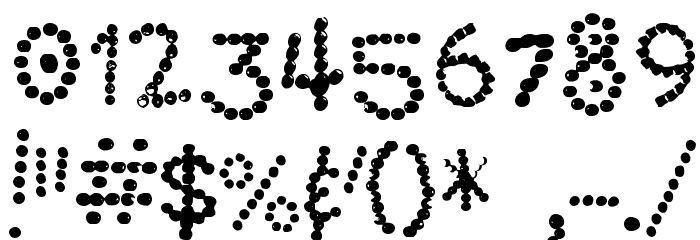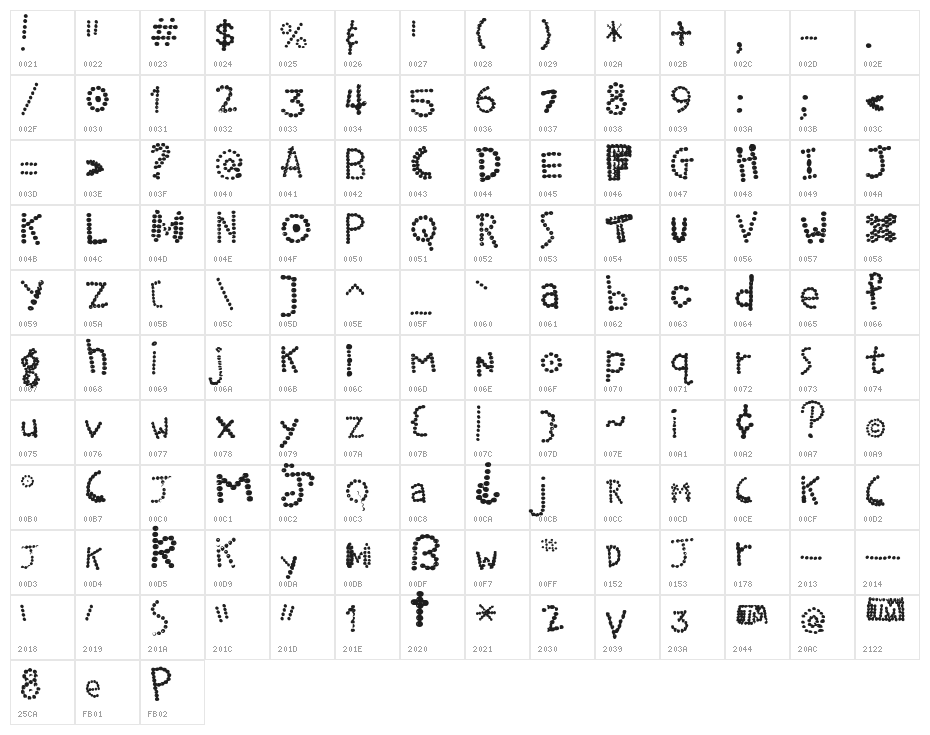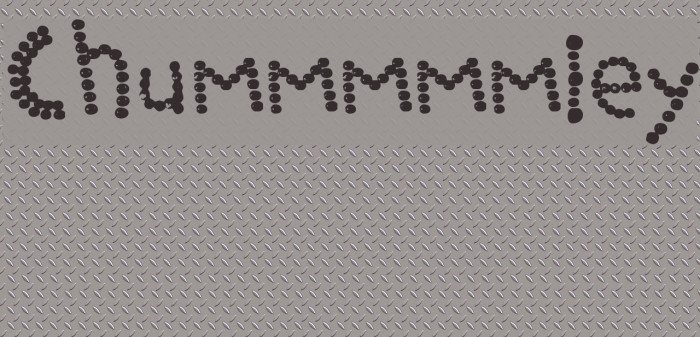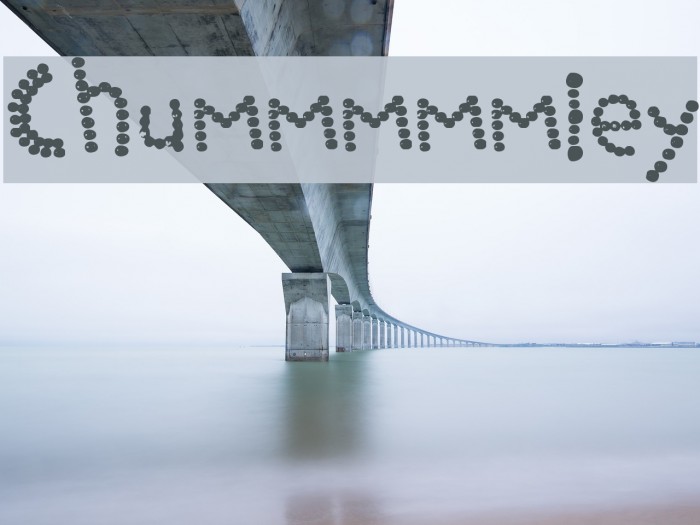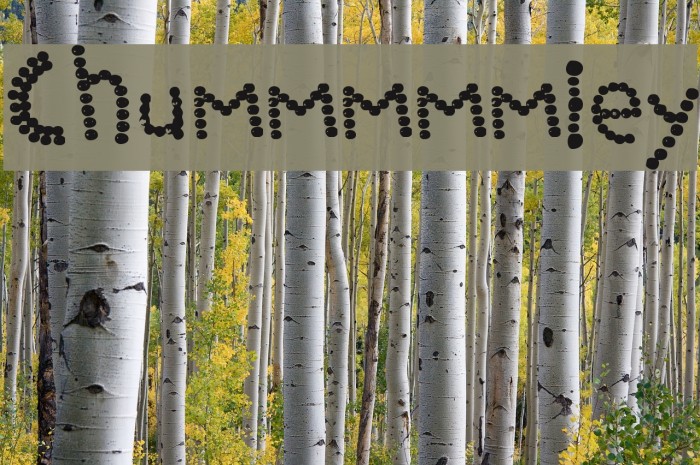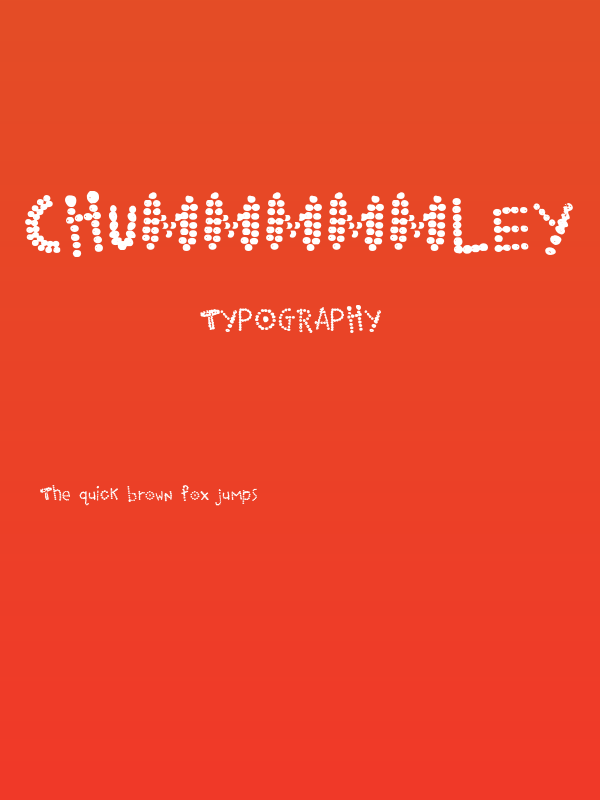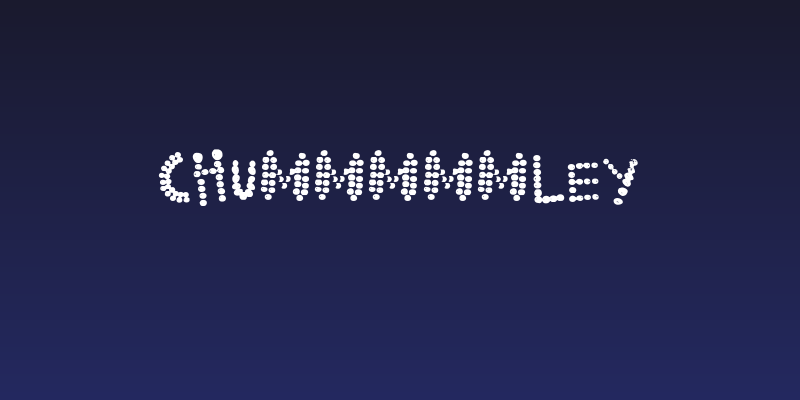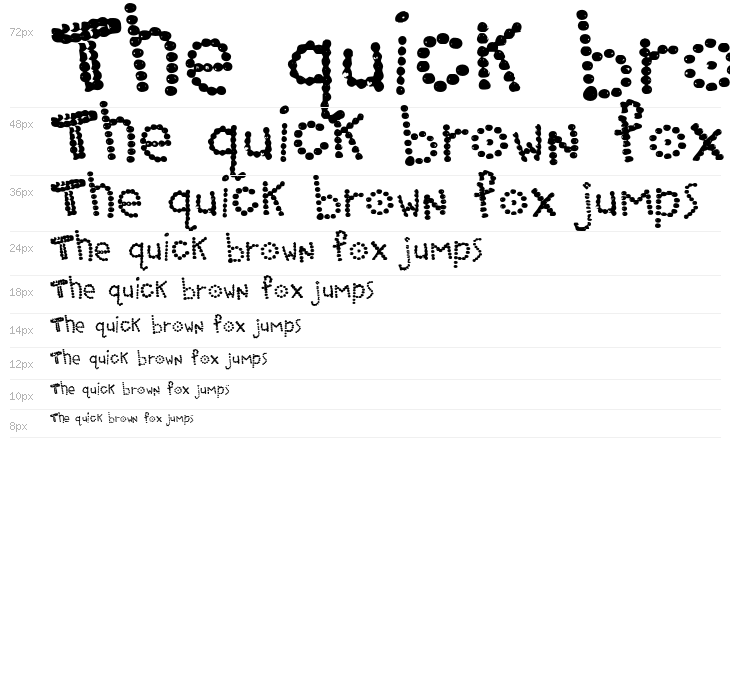
Chummmmmley Font
Chummmmmley Description
This font is a playful and creative design composed entirely of small, evenly spaced dots that form each character. The letters and numbers are crafted with a consistent dot pattern, giving them a unique, textured appearance. The style is reminiscent of a pointillism art technique, where the dots collectively create the shape of each character. This font has a whimsical and informal feel, making it ideal for projects that require a fun and engaging visual element. The characters maintain a uniform size and spacing, ensuring readability despite their unconventional design. The font includes a full set of uppercase and lowercase letters, numbers, and a variety of special characters, all adhering to the dotted motif.